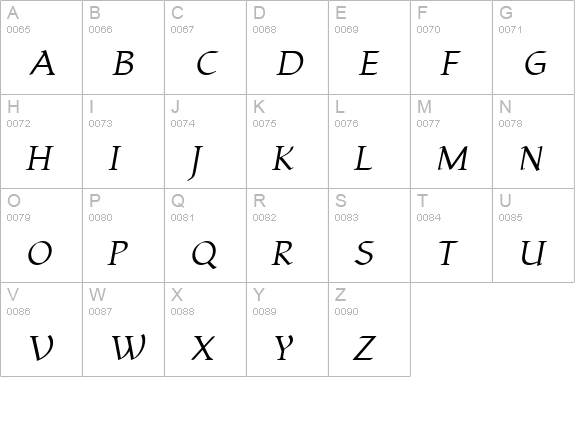
Yngreena Italic Font Details
Yngreena Italic is a distinctive, italic variant in the Yngreena typeface family \xE2\x80\x94 well suited to design and typography projects.
Yngreena Italic font is a stunning display typeface that exudes elegance and sophistication. Its sleek and stylish design makes it perfect for a wide range of design projects, from branding to editorial design. The italic style adds a touch of flair and modernity to any text, making it stand out from the crowd. What makes Yngreena Italic font even more appealing is that it is available for free download at FontsMarket.com. This means you can add this beautiful font to your collection without having to spend a penny. Don't miss out on the opportunity to enhance your designs with the timeless beauty of Yngreena Italic font. Download it today and elevate your projects to new heights of creativity.